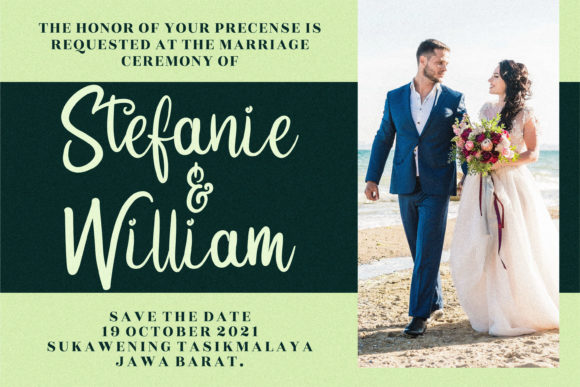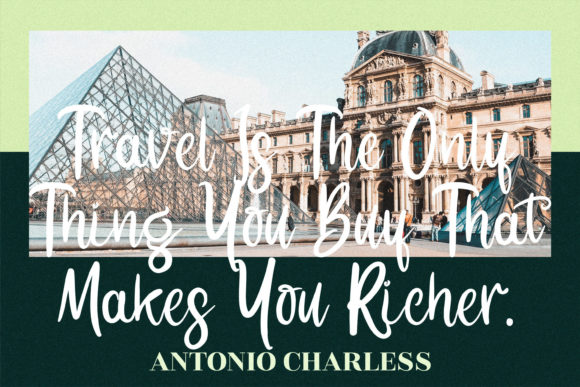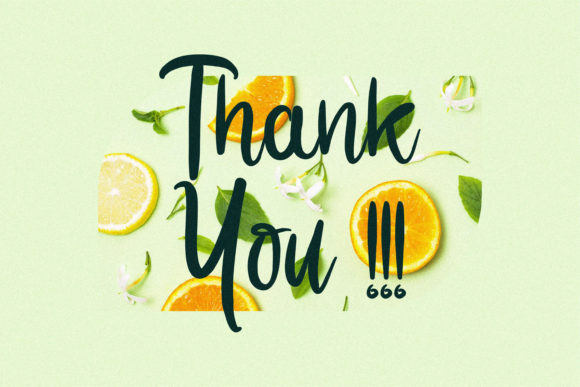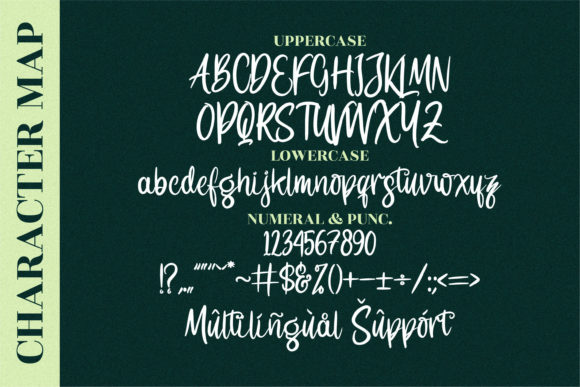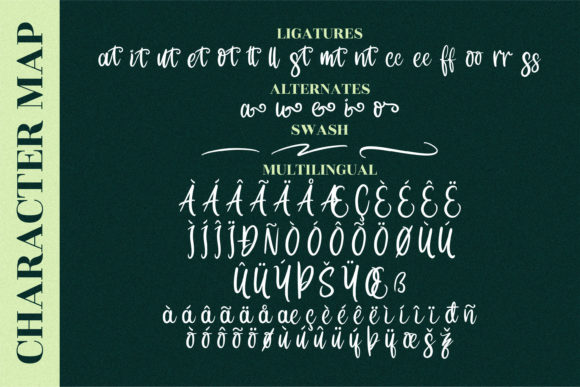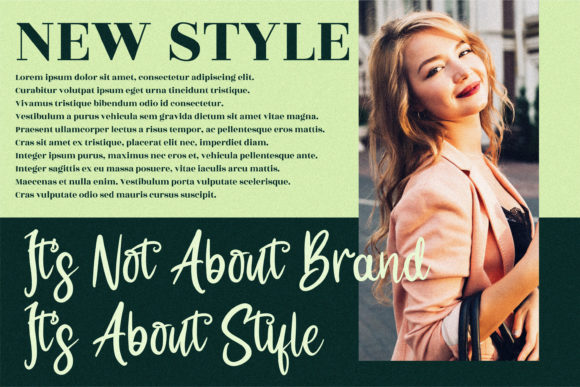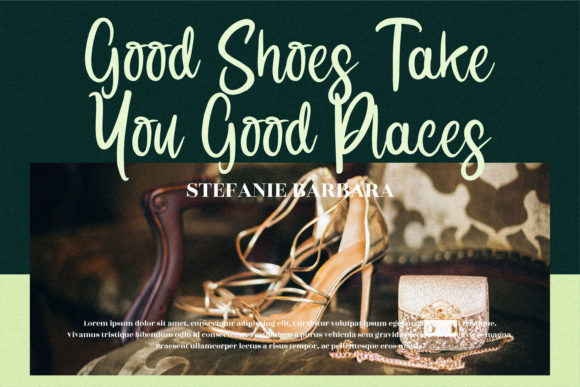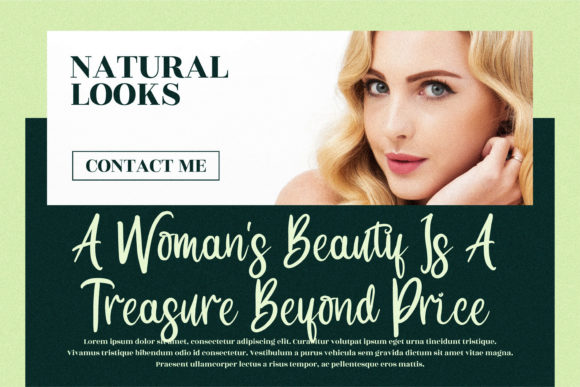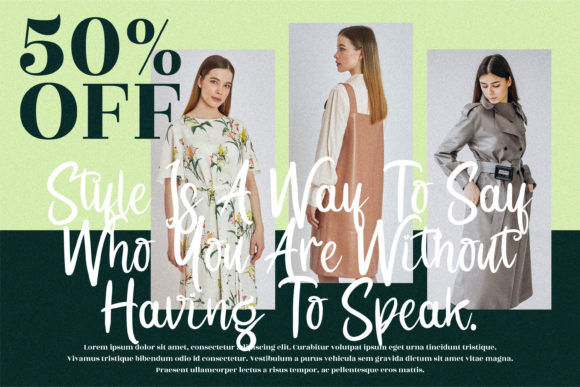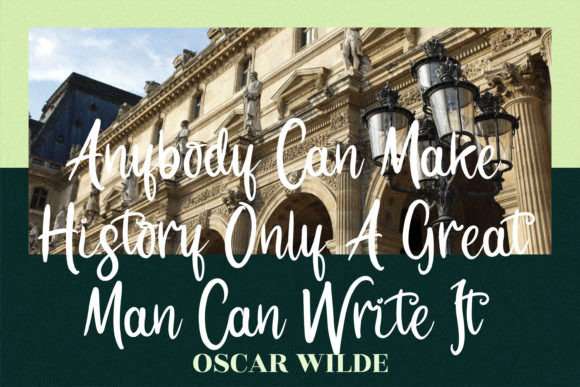
Lemonte Buster Font
About Lemonte Buster Font
Lemonte Buster is a whimsical script font with a relaxed theme, featuring a lovely style. No matter the topic, this font will be an incredibly asset to your fonts’ library, as it has the potential to elevate any creation.